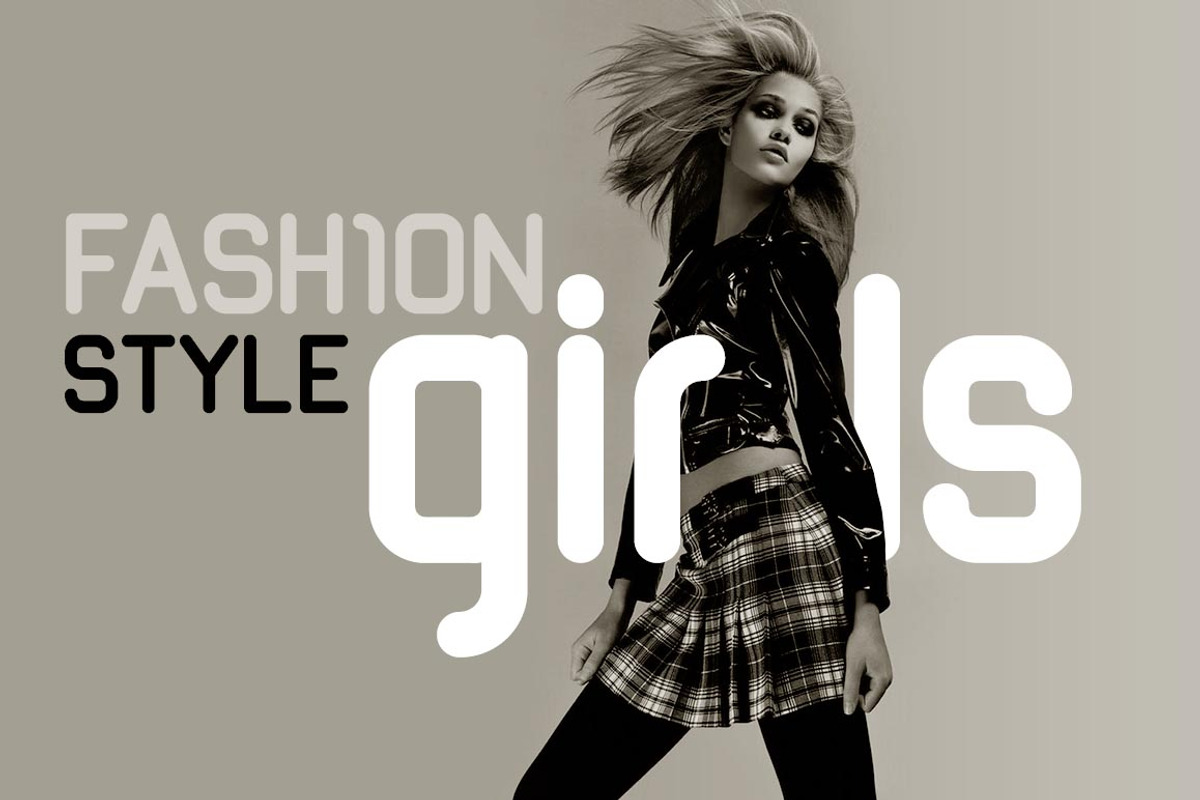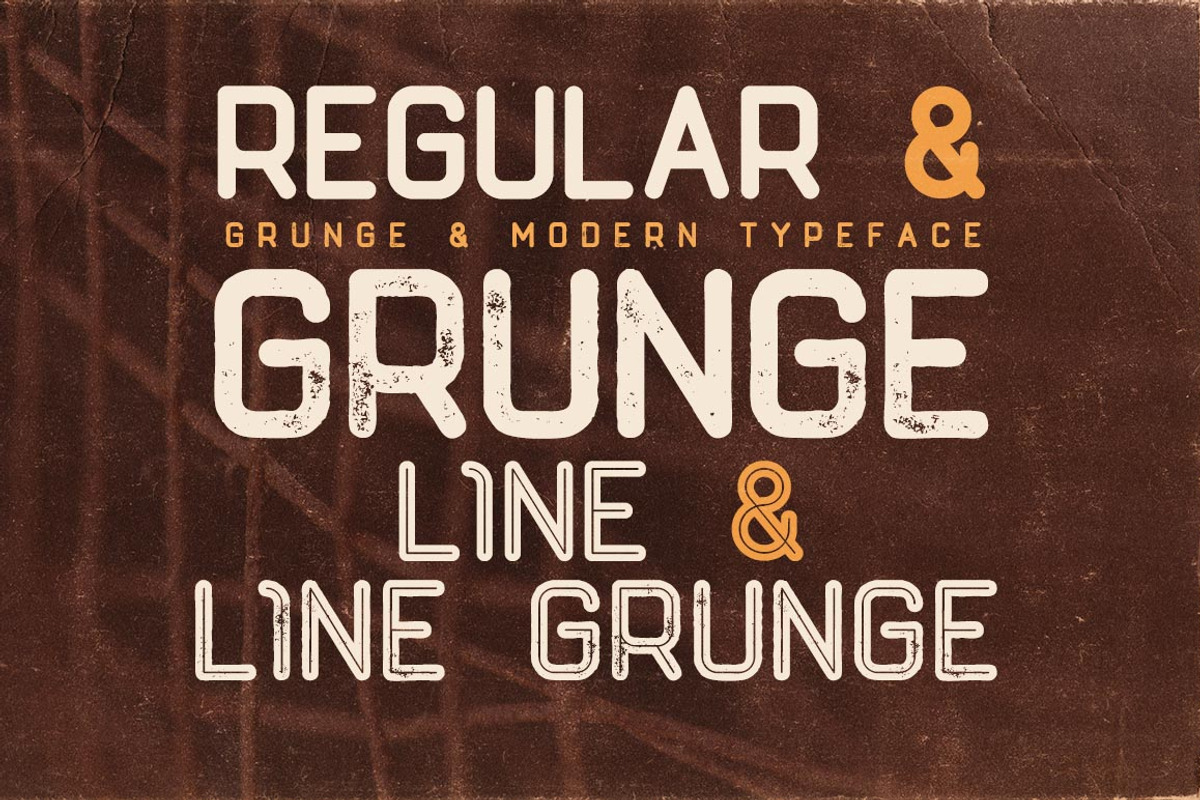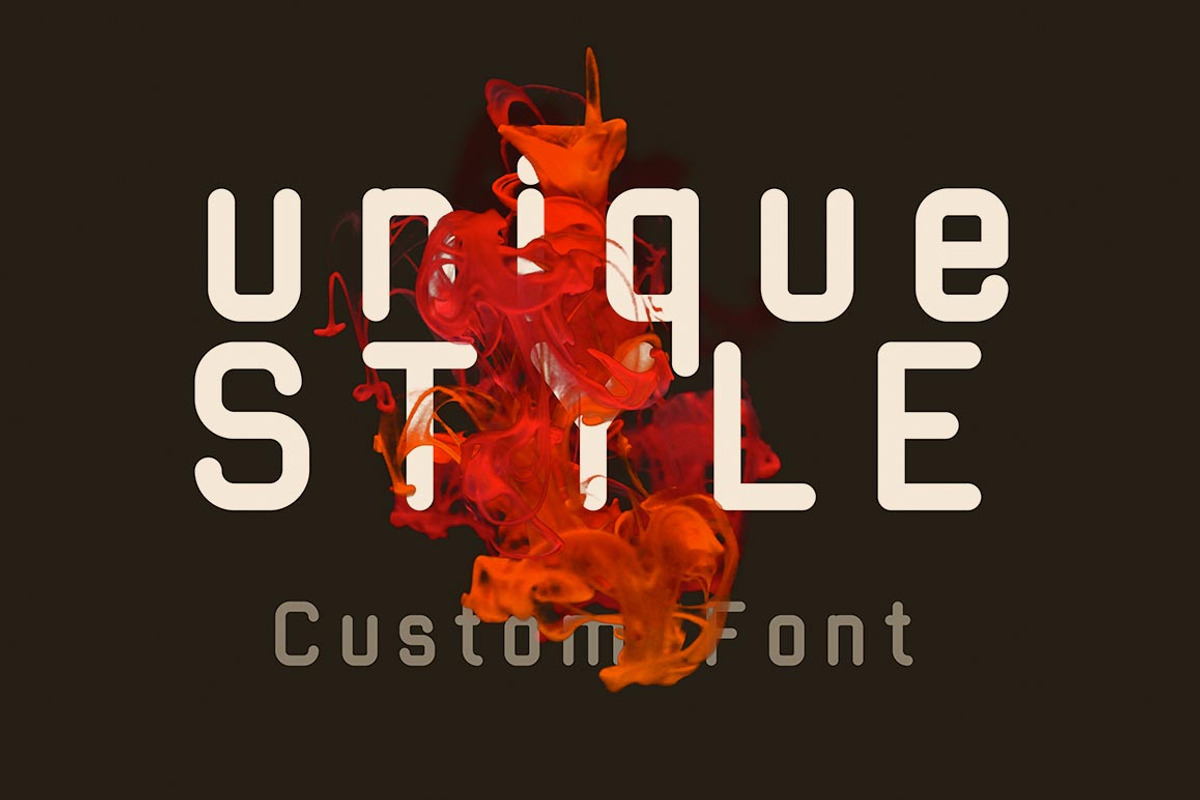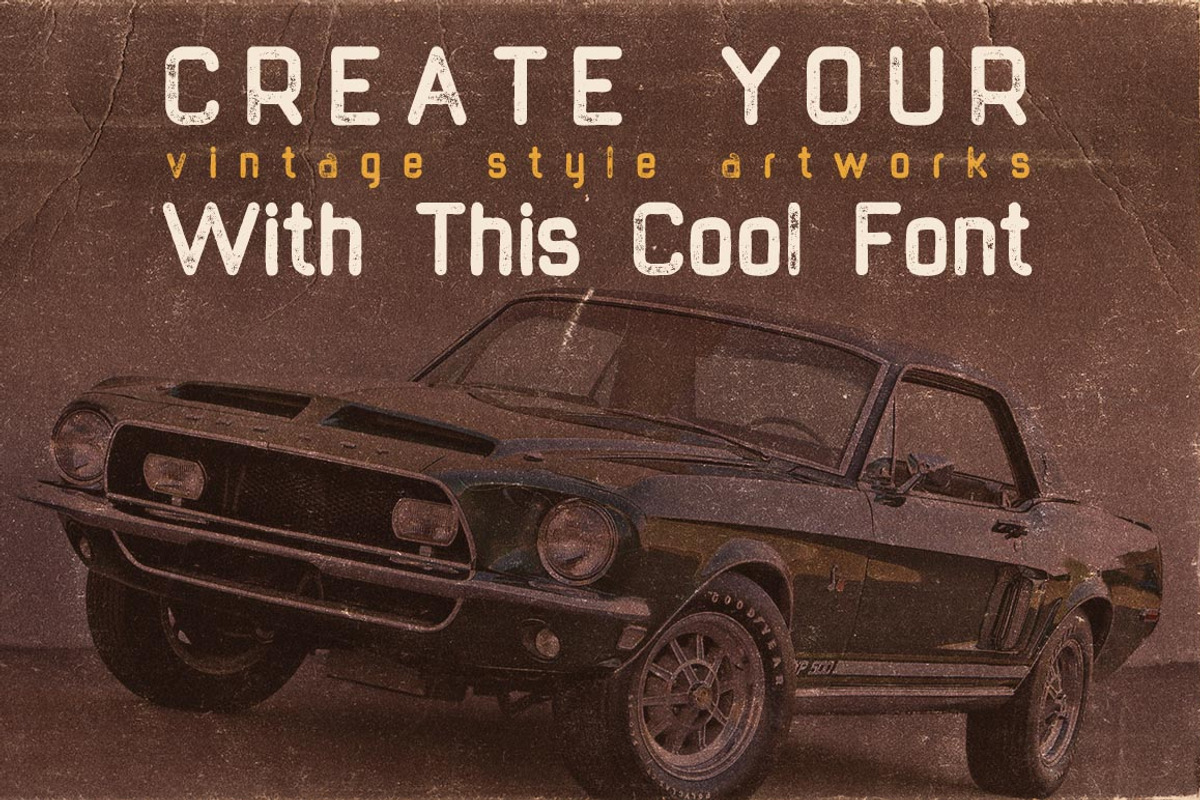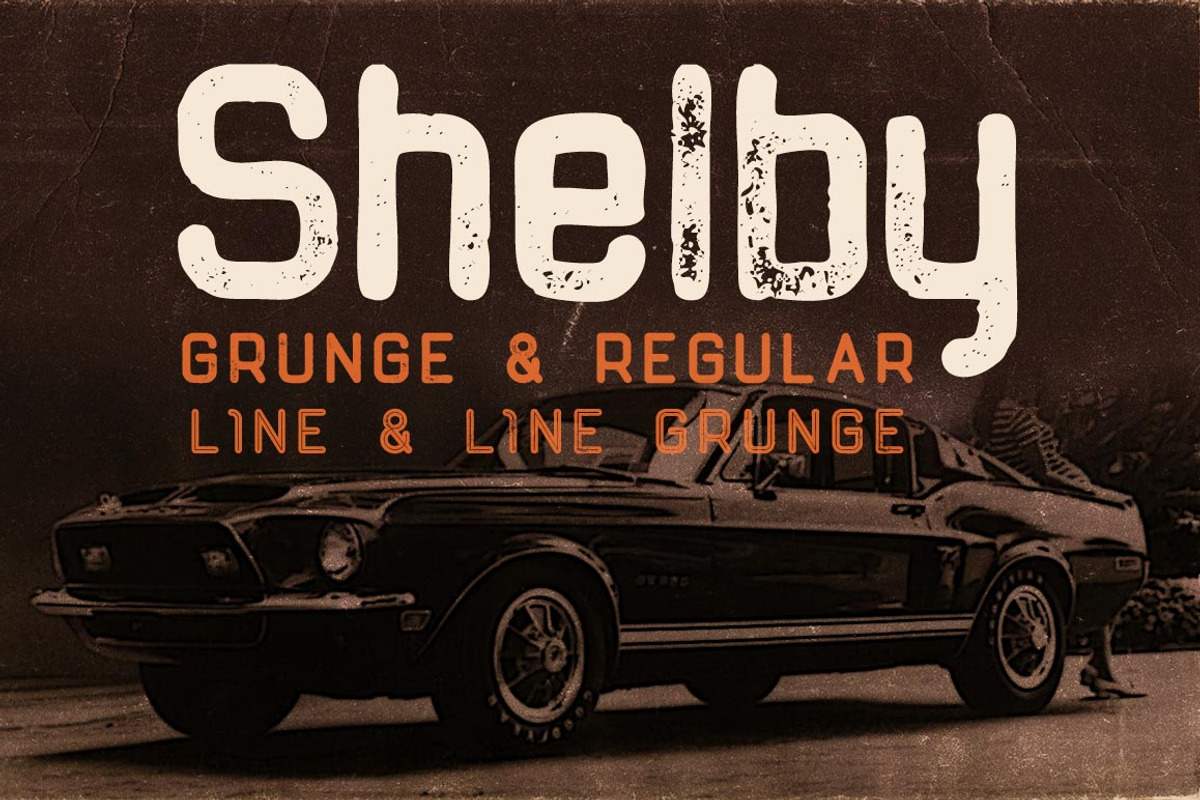
Shelby Typeface
Shelby Typeface by JumboDesign is a font selected for branding, posters, packaging, typography.
Why Shelby Typeface is worth a look
Shelby Typeface by JumboDesign fits naturally into Branding, posters, packaging, typography.